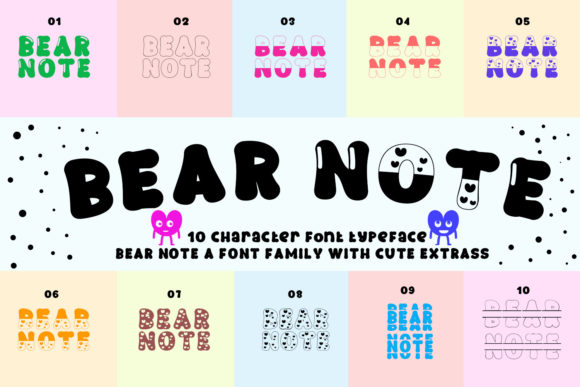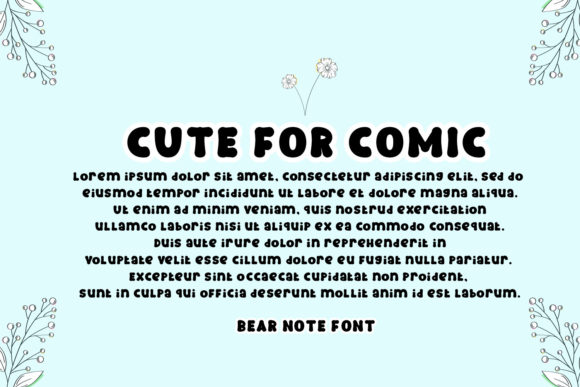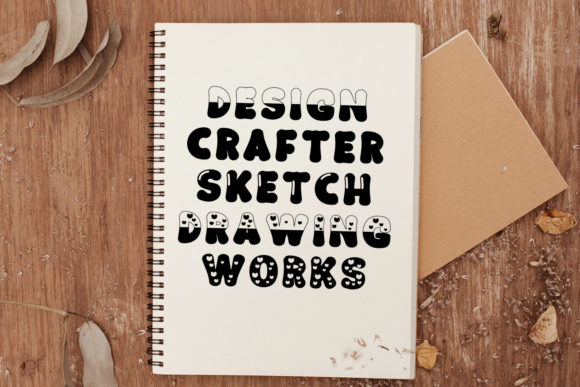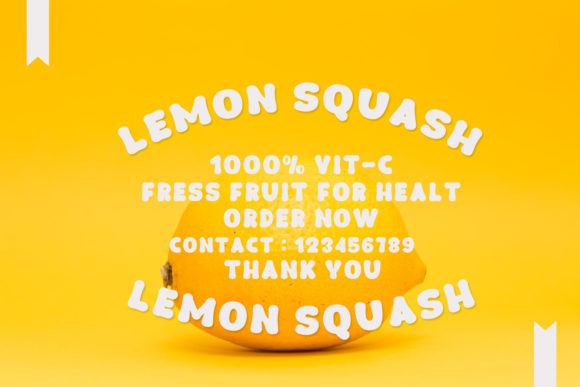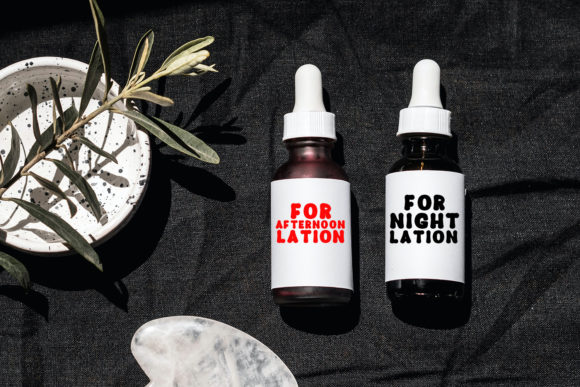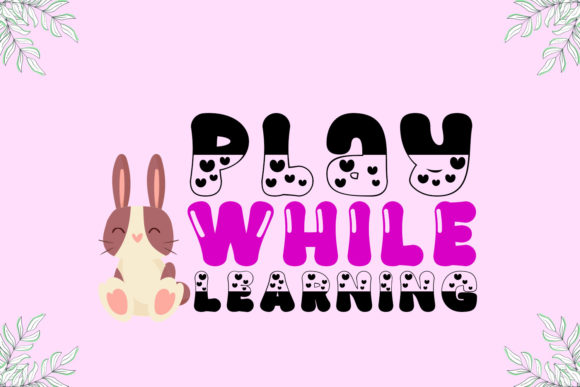
Bear Note Font: The Perfect Choice for Fun and Playful Designs
Bear Note Font is a cool and fun looking display font that embodies playfulness and authenticity, making it the perfect choice for any children activity or school project. This delightful font is designed to bring a sense of excitement and energy to your designs, and its unique characteristics make it an excellent addition to any designer’s or crafter’s toolkit.
What Makes Bear Note Font So Special?
Bear Note Font is a display font that is specifically designed to make a statement. Its playful and fun design makes it perfect for use in children’s books, school projects, and other activities where a sense of excitement and energy is desired. The font’s unique characteristics, such as its bold lines and rounded edges, give it a distinctive look that is sure to capture the attention of your audience.
Key Features of Bear Note Font
- Playful Design: Bear Note Font has a fun and playful design that is perfect for children’s activities and school projects.
- Bold Lines: The font’s bold lines give it a distinctive look that is sure to make a statement.
- Rounded Edges: The font’s rounded edges add to its playful and fun design, making it perfect for use in designs where a sense of excitement and energy is desired.
- Authentic Feel: Bear Note Font has an authentic feel that makes it perfect for use in designs where a sense of genuineness is desired.
Uses for Bear Note Font
Bear Note Font is a versatile font that can be used in a variety of designs, including:
- Children’s Books: The font’s playful design makes it perfect for use in children’s books, where a sense of excitement and energy is desired.
- School Projects: Bear Note Font is a great choice for school projects, where a sense of fun and playfulness can help to make the project more engaging.
- Crafting Projects: The font’s unique design makes it perfect for use in crafting projects, such as scrapbooking and card making.
- Signs and Posters: Bear Note Font can be used to create eye-catching signs and posters that are sure to grab the attention of your audience.
Tips for Using Bear Note Font
Here are a few tips for using Bear Note Font in your designs:
- Use it in Large Sizes: Bear Note Font is a display font, so it’s best used in large sizes where its unique characteristics can be fully appreciated.
- Experiment with Colors: The font’s playful design makes it perfect for use with bright and bold colors.
- Pair it with Other Fonts: Bear Note Font can be paired with other fonts to create a unique and interesting design.
Bear Note Font is a fun and playful display font that is perfect for use in children’s activities and school projects. Its unique characteristics, such as its bold lines and rounded edges, make it a great choice for designers and crafters who want to add a sense of excitement and energy to their designs. With its versatility and ease of use, Bear Note Font is a great addition to any designer’s or crafter’s toolkit.